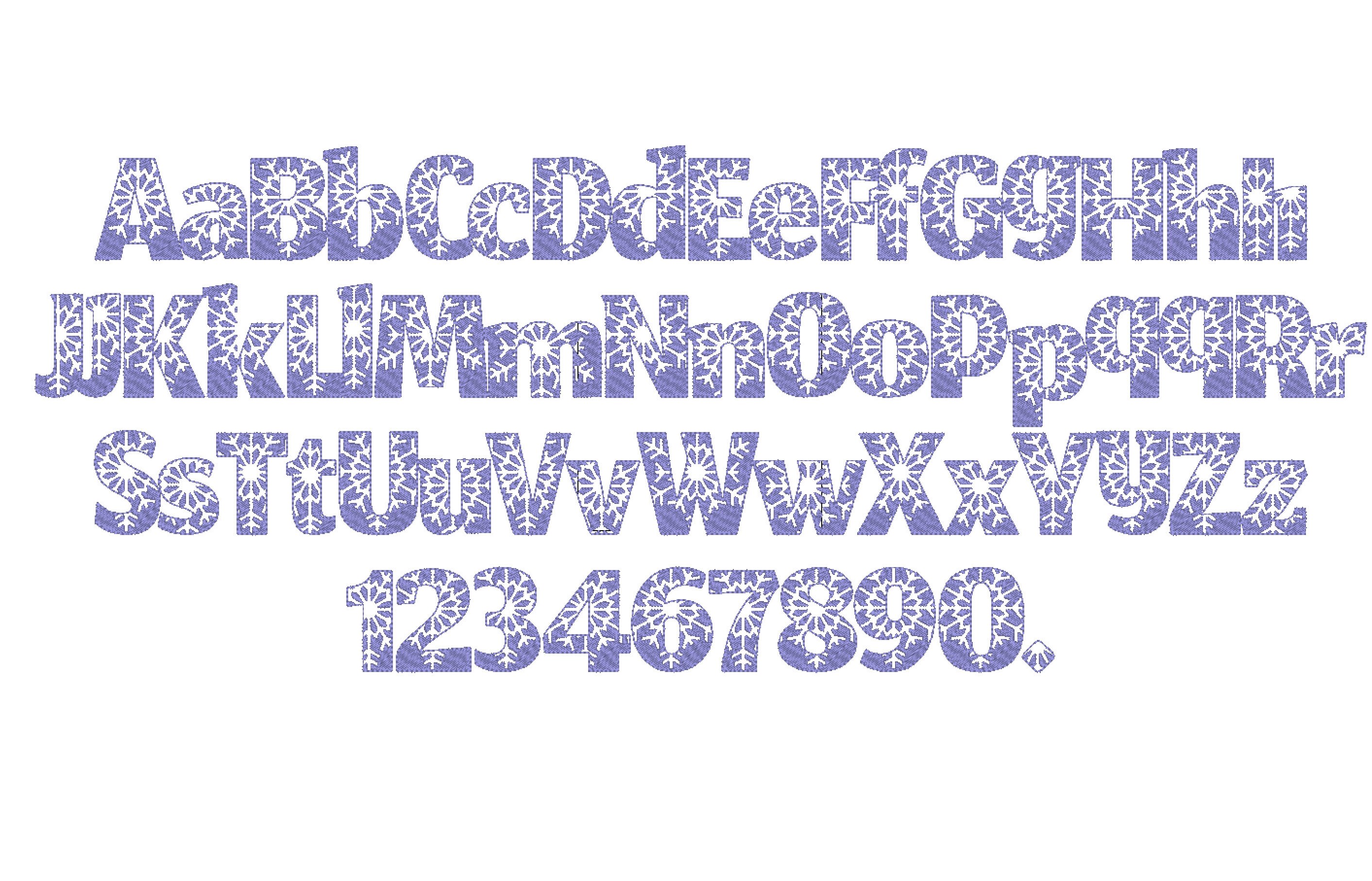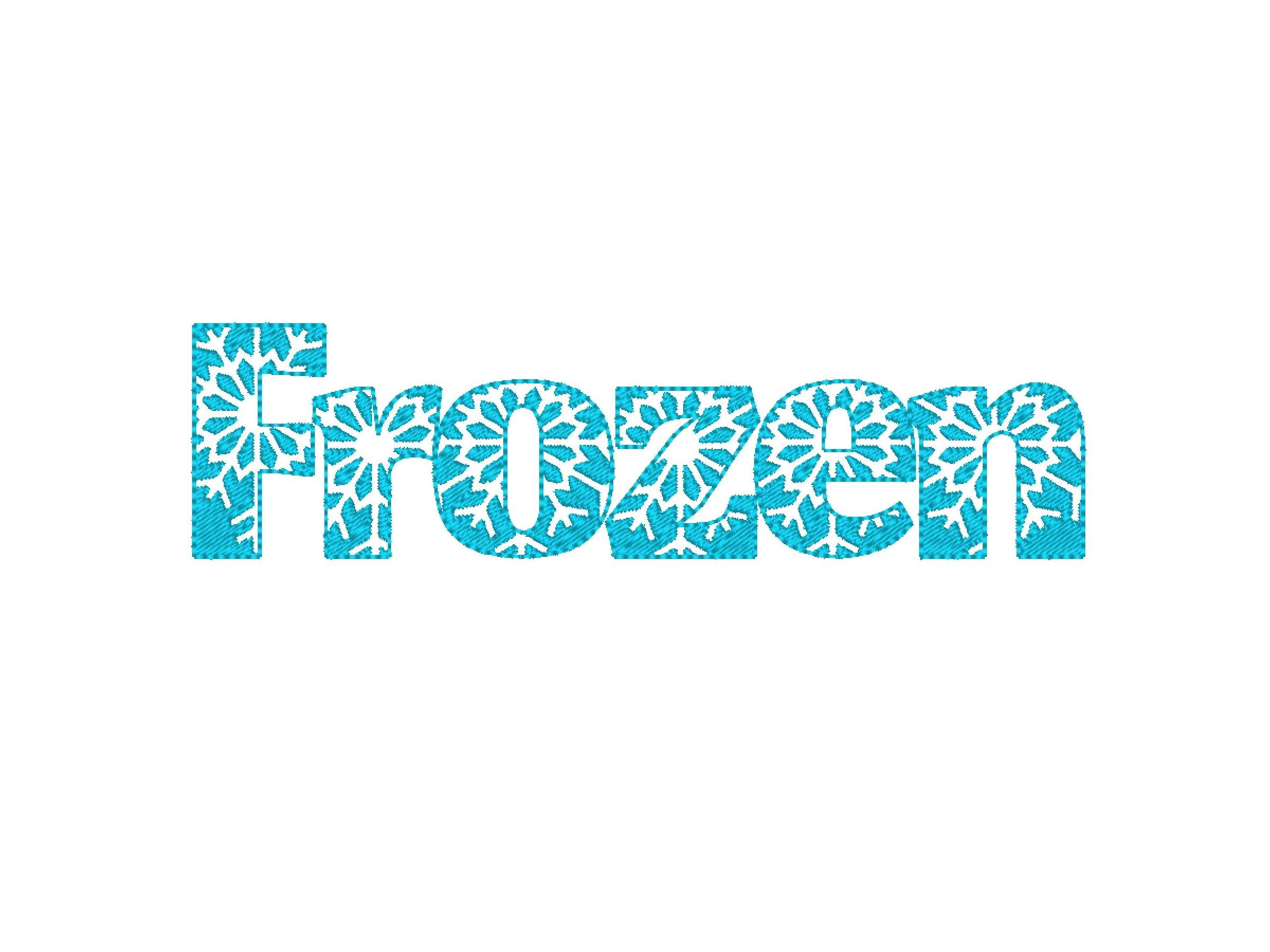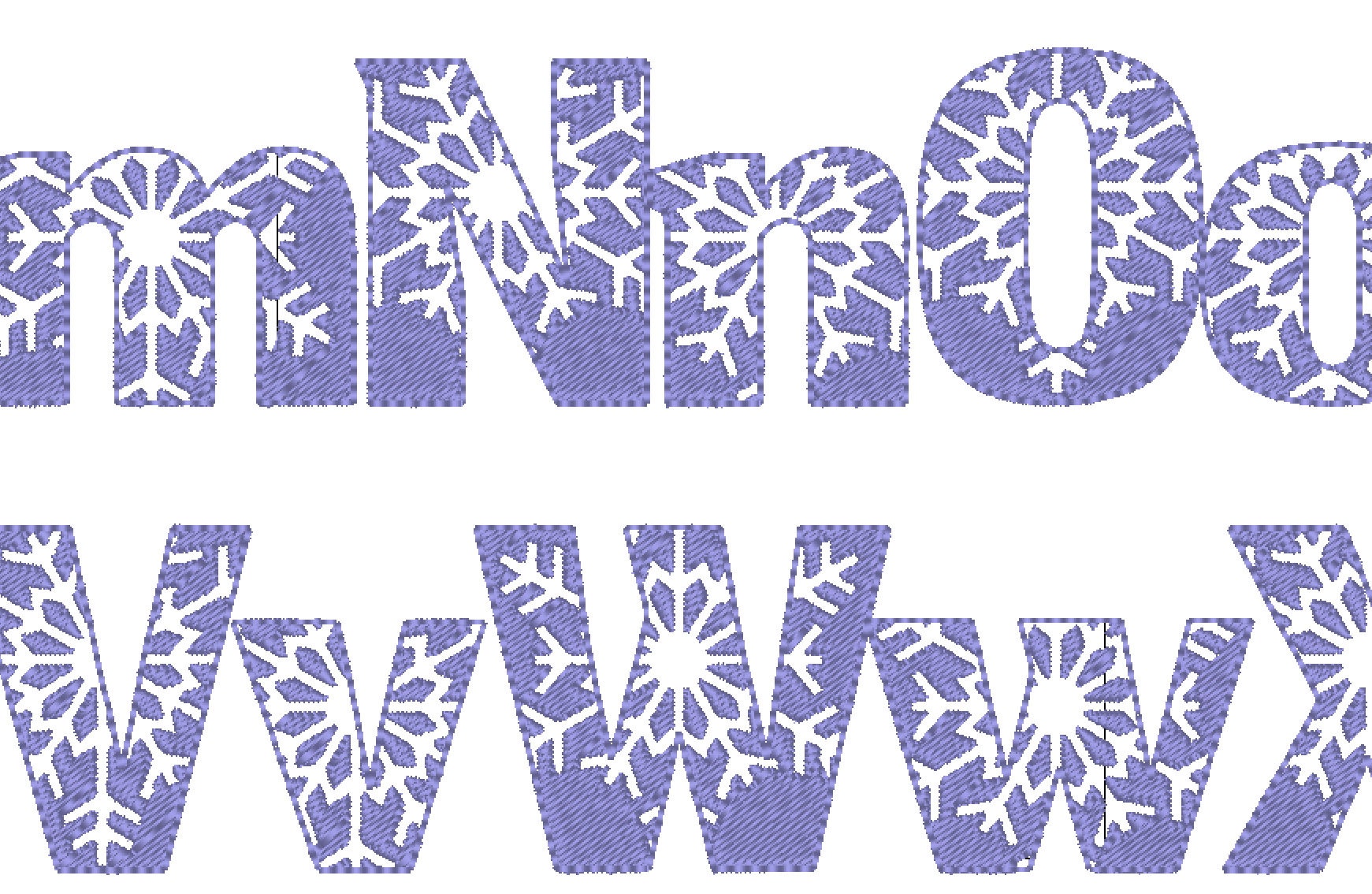
Fill stitch Frozen Font machine embroidery designs monogram letters assorted sizes 1.5 up to 3.5 inches snow snowflake Christmas alphabet
Whole alphabet uppercase and lowercase letters Aa-Zz, numbers 0-9, and a period.
The letters are fill stitched, and the snowflake is transparent, the background fabric looks through. Stunning result!